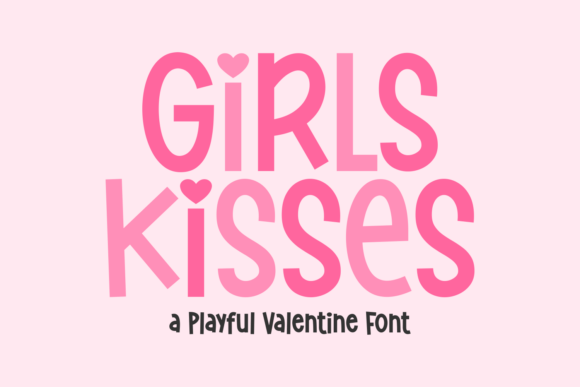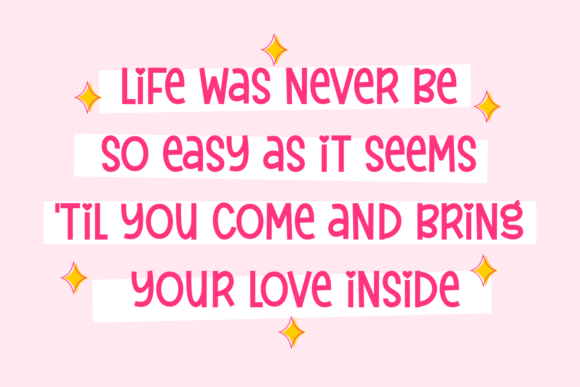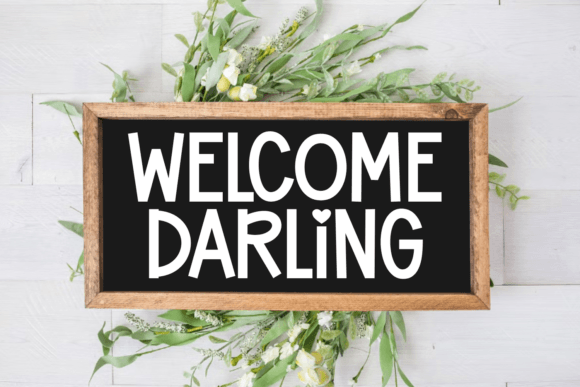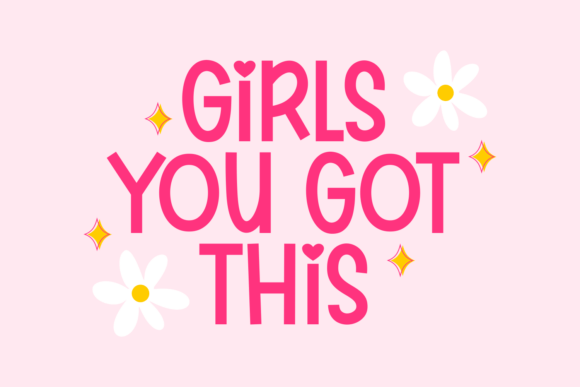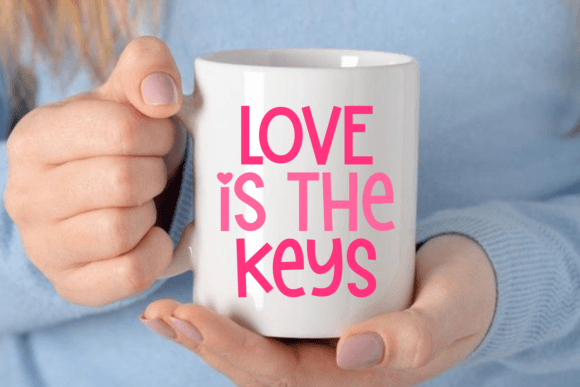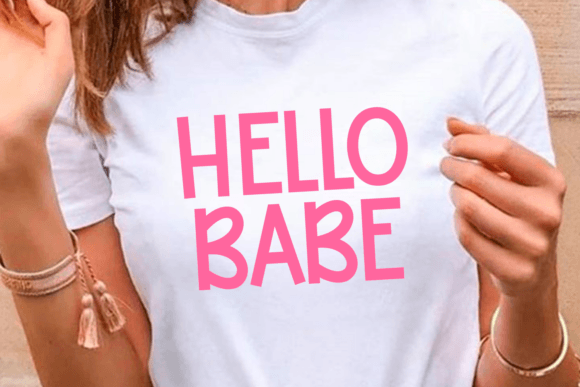
Girls Kisses Font
Introducing Girls Kisses, an irresistibly charming handwritten font, perfect for infusing a burst of playfulness into your creative crafts or innovative projects. With its adorable appeal and personalized touch, this unique font truly embodies a fun, whimsical style that’s perfect to captivate any audience. Embrace a delightfully unique typography experience with Girls Kisses.